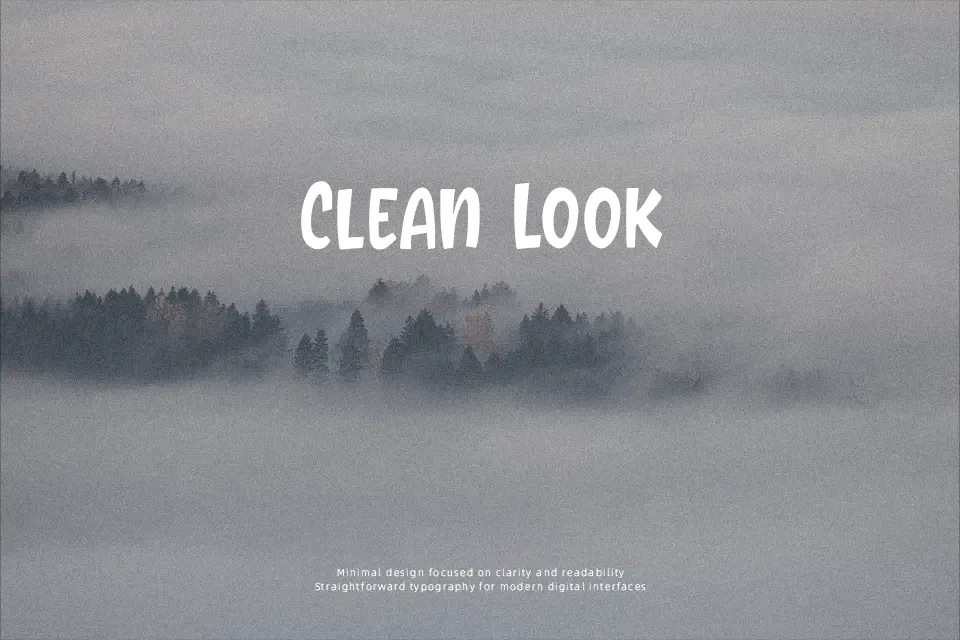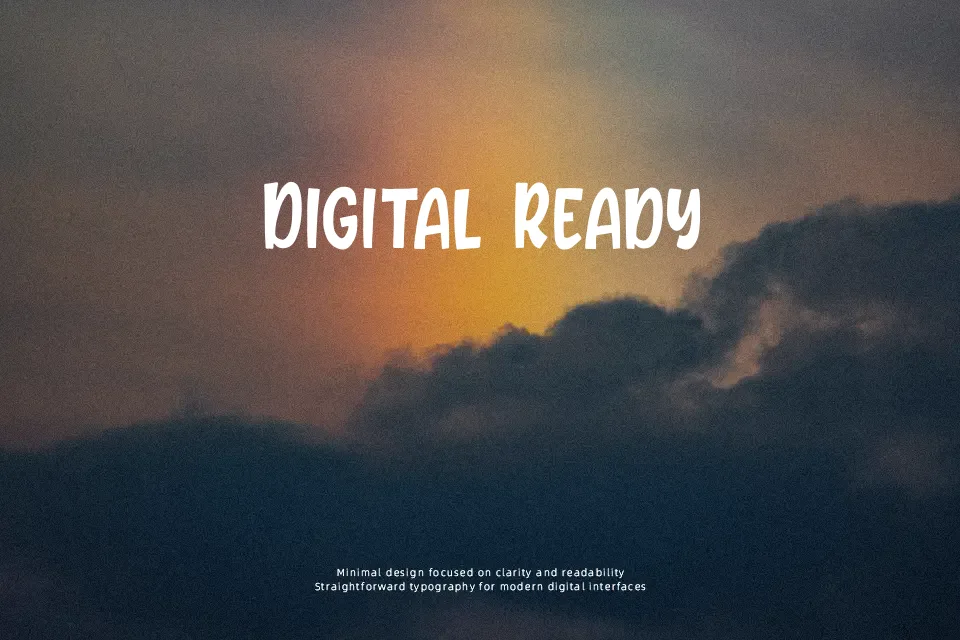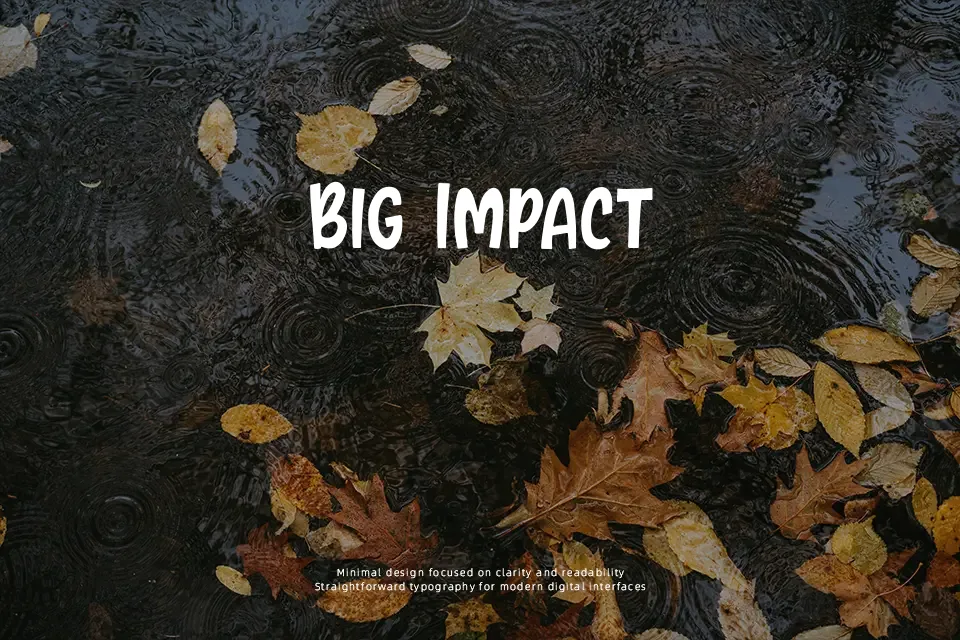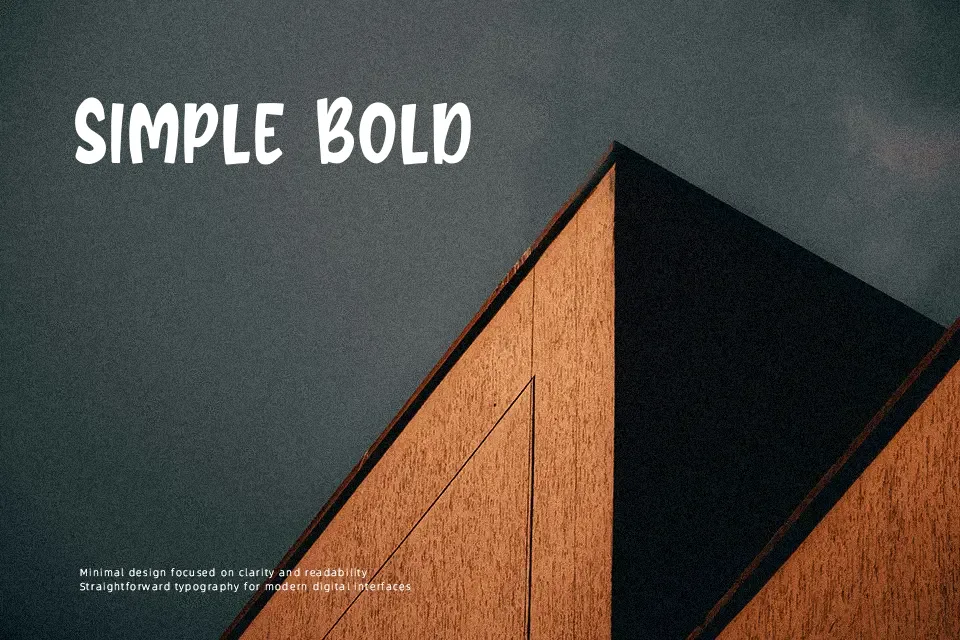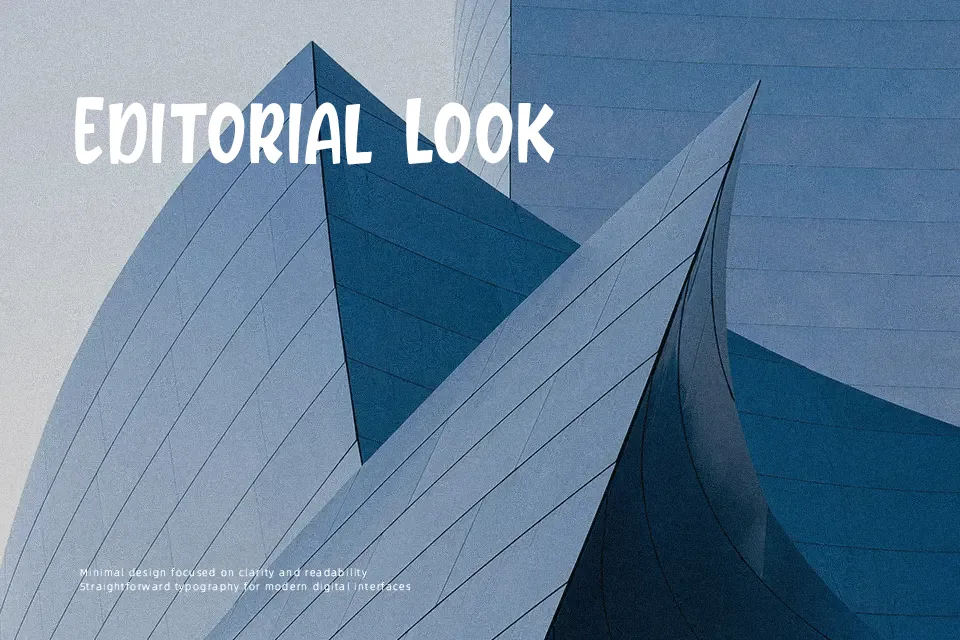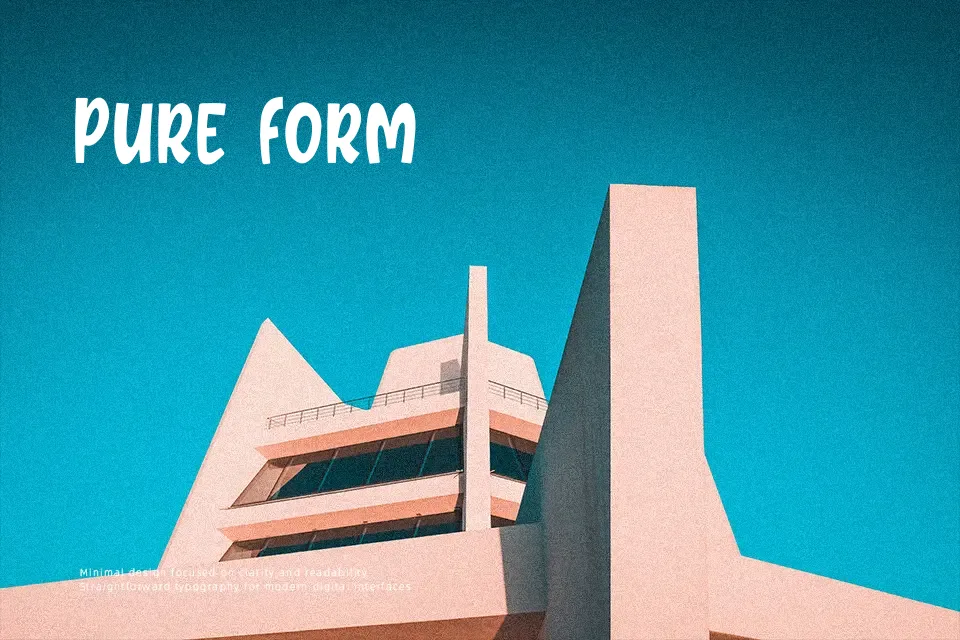
Biber Bread Font
Biber Bread leans into thick, slightly uneven strokes with rounded terminals that feel closer to chalk-on-blackboard than polished digital type. The letterforms carry a deliberate irregularity — no two characters feel mechanically identical — which gives layouts a handcrafted, market-stall energy. It works well as a single-line headline on food packaging, café menus, or festive event banners where warmth matters more than precision. That same looseness becomes a liability in multi-line settings: stacking too many lines of Biber Bread turns charming into chaotic, and small sizes kill its personality entirely. Think of it as a display font that earns its keep at large scale — shrink it below 36pt and the details blur into noise.
Best For:- Bakery and café menu headers
– Food packaging labels and artisan product branding
– Festival or street market promotional posters
– Kids’ event flyers and playful social media graphics
Not Ideal For:- Long-form body text or multi-paragraph layouts
– Corporate reports or formal business documents
– Small-size applications under 24pt
– Minimalist or high-end luxury branding
Perfect for branding, packaging, and poster, with a creative and display style.